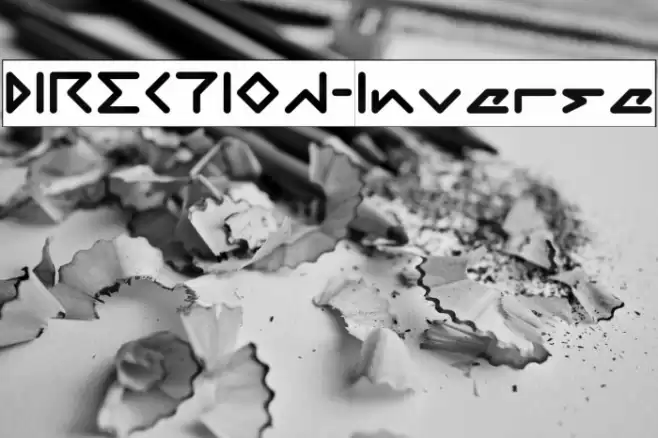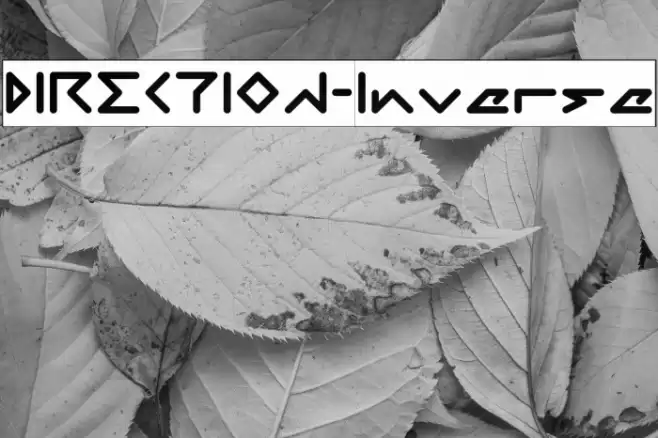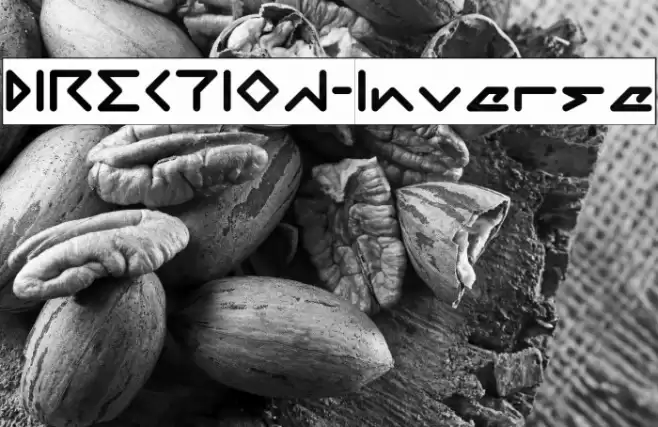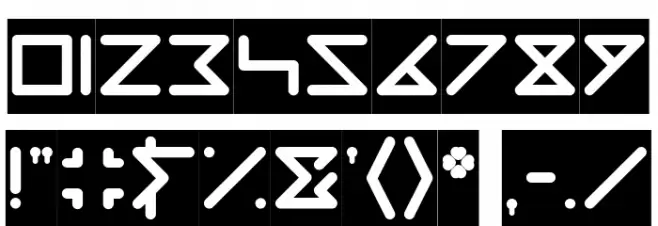
DIRECTION-Inverse Font
DIRECTION-Inverse Description
This font features a futuristic and geometric design with angular shapes and sharp edges. The characters are constructed with a consistent line thickness, giving it a uniform appearance. The uppercase and lowercase letters share similar design elements, creating a cohesive look. Numbers and special characters follow the same stylistic approach, maintaining the font's unique identity. The overall aesthetic is modern and somewhat abstract, making it stand out in digital and creative projects.
A futuristic, geometric font with angular shapes and consistent line thickness from Uncategorized fonts.
- Proposed Projects: Ideal for sci-fi themed designs, video game interfaces, modern branding, and digital artwork.
- Use Case: Headlines, Logos, Digital Art